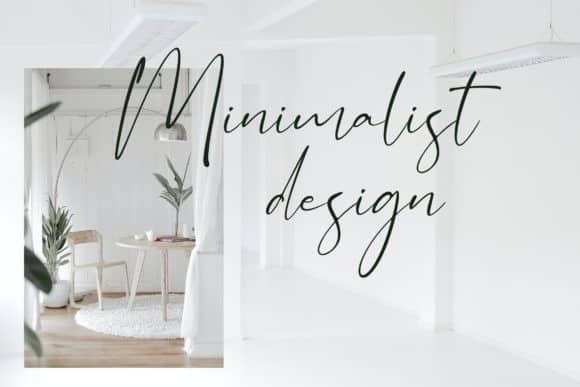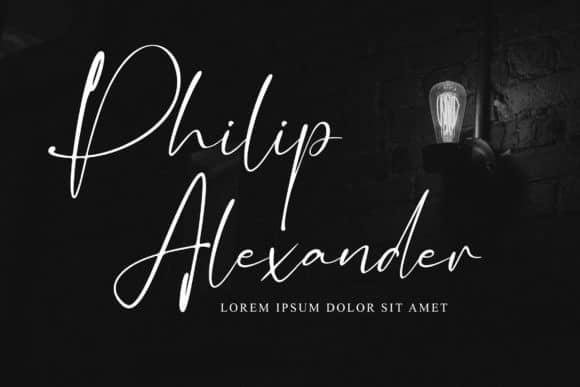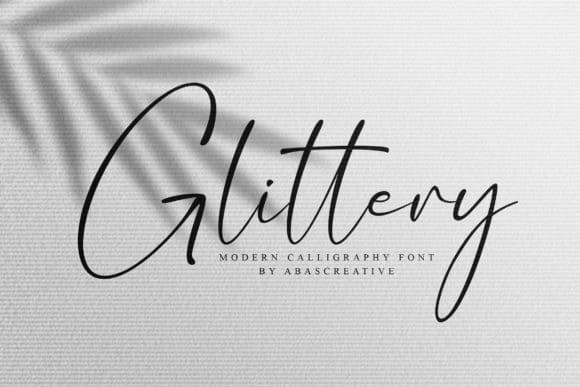
Thanks for checking out Glittery Script Font– a romantic monoline script. A simple hand writing with natural signature style. Made from font designer named AbasCreative. this typeface is a stylish modern calligraphy font, featuring a chic flair. It is perfect for branding, signature, wedding invitations, promotions, product packaging, and many other ideas.